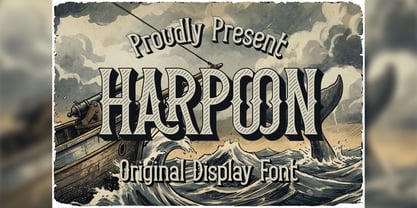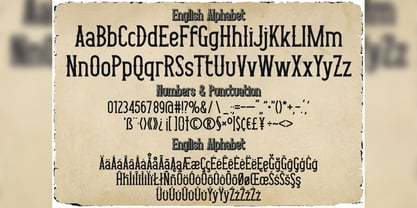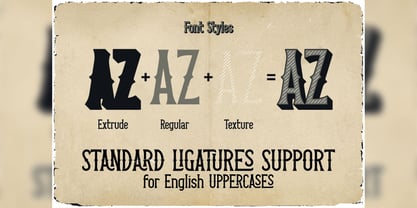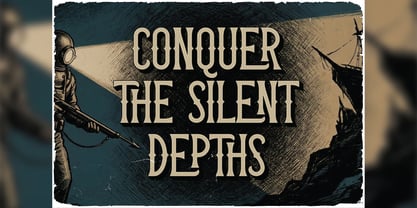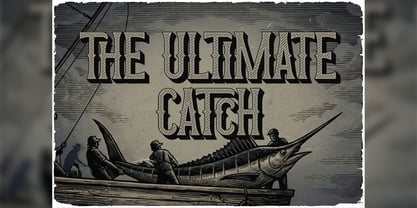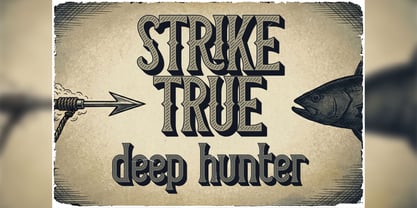
Harpoon
by Vozzy
The Harpoon Font Family was designed by Oleg Voznyy and published by Vozzy. Harpoon contains 3 styles and family package options. More about this family
Introducing the striking font family "Harpoon," designed specifically for headlines and accent inscriptions that demand attention. This unique typeface features a comprehensive set of additional characters, punctuation marks, and multilingual options, ensuring versatility across various languages. With a rich array of standard ligatures, "Harpoon" enhances the visual appeal of your text—just ensure your software supports these OpenType features. Perfect for branding, web design, and editorial projects, this font will elevate your beautiful designs to new heights!
Designers: Oleg Voznyy
Foundry: Vozzy